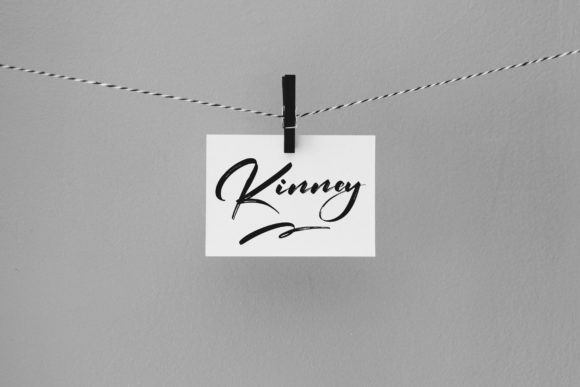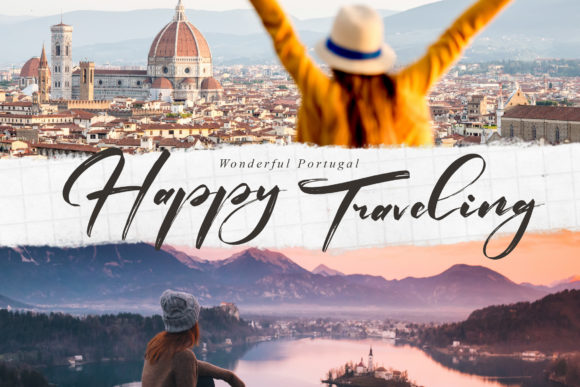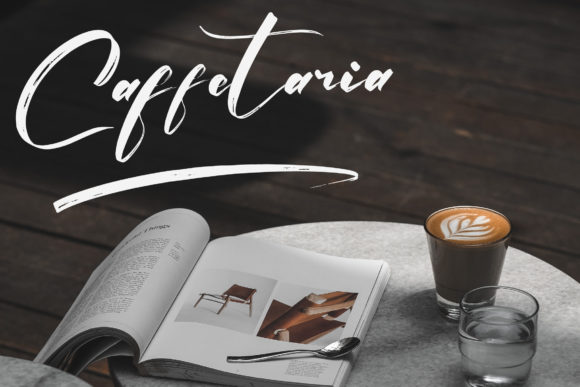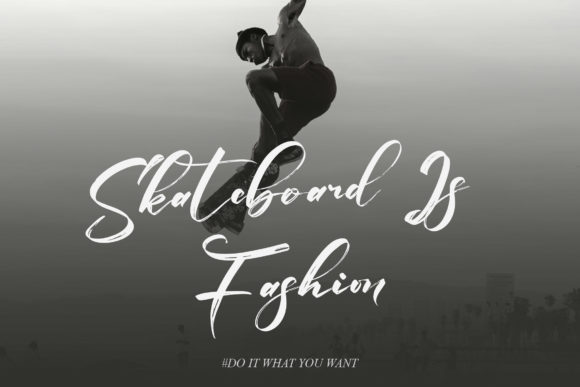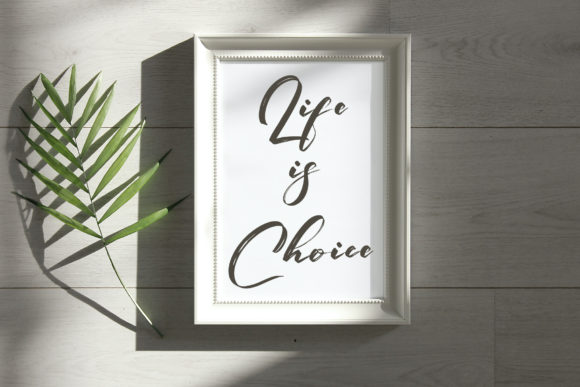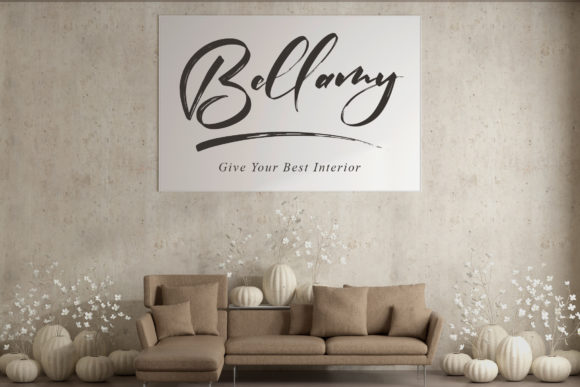
The Magic of Handwritten Fonts: Elevating Your Design Projects
Have you ever been brainstorming a new design project and suddenly, an idea hits you like a bolt of lightning? The excitement is palpable, and you can’t wait to bring your vision to life. But, let’s face it – sometimes, the perfect font can be the missing piece that takes your design from ordinary to extraordinary. This is where the Bintang Signature Font comes in – a stunning, handwritten font that will add a touch of luxury and sophistication to any project.
As a designer, you know that the right font can make all the difference. The Bintang Signature Font is not just another font – it’s a statement piece that will elevate your designs and leave a lasting impression. With its unique feel and stunning impact, this font is sure to become a go-to choice for any project that requires a touch of elegance and sophistication.
Bintang Signature Font Key Features
- Font Family: Bintang Signature Font is a unique, hand-drawn font that offers a distinctive and elegant look for signatures and handwritten text.
- Unique Characteristics: The Bintang Signature Font features dynamic letter connections, subtle flourishes, and a range of stylistic alternates to add personality to signatures.
- Legibility: The font is designed for optimal legibility, making it easy to read and recognize even in small sizes or at a distance.
Bintang Signature Font Review
Overall, I was impressed with the Bintang Signature Font. It’s a beautifully crafted font that exudes luxury and sophistication. ✨ The elegant script and refined details make it perfect for high-end branding and marketing materials.
- ✨ Elegant script design that adds a touch of luxury to any project.
- ✨ Refined details and subtle flourishes that make it perfect for high-end branding.
- ✨ Good for use in logos, invitations, and other special occasion materials.
- ⚠️ Limited font weights and styles, which may limit its versatility in certain projects.
- ⚠️ Not ideal for large blocks of text, as it may become difficult to read.
- ⚠️ May require some adjustments to line spacing to ensure optimal readability.
Despite these limitations, I found the Bintang Signature Font to be a valuable addition to my design toolkit. It’s perfect for special occasions and high-end branding projects. With a little creativity and adjustments, it can add a touch of elegance to any project.
The Bintang Signature Font is ideal for use in branding and marketing materials, such as logos, business cards, and brochures.
It can also be used in social media graphics, presentations, and other digital designs where a unique and eye-catching font is needed.